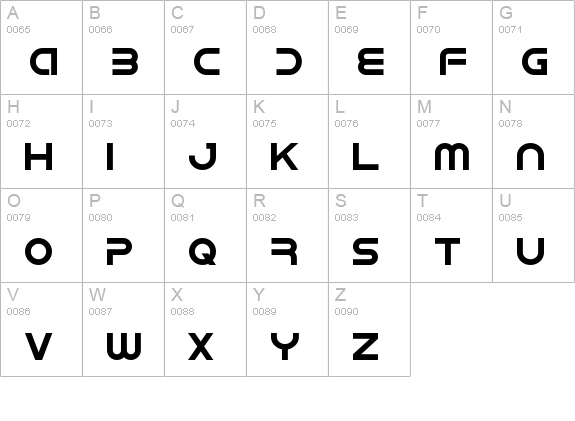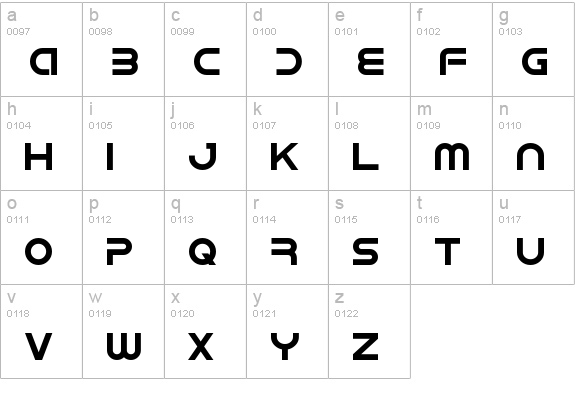
IDroid Font Details
IDroid is a free for personal use font in the Modern > Sci-Fi category. It has been downloaded 60 times and is available for Windows, Mac and Linux.
Introducing IDroid font, a modern and dynamic typeface designed to bring a touch of futuristic elegance to your projects. With its sleek and stylish letterforms, IDroid font is perfect for creating eye-catching designs that demand attention. IDroid font is not just visually appealing, but also highly versatile. Whether you're designing logos, posters, websites, or any other creative endeavor, this font will effortlessly elevate your work to new heights. Its clean lines and sharp edges make it a standout choice for any modern design project. One of the best features of IDroid font is that it is free! That's right, this incredible font is freely available to download at FontsMarket.com, making it accessible to designers and enthusiasts alike. Now, you can enhance your projects with a professional and futuristic touch without breaking the bank. IDroid font is not only visually stunning, but it also offers a wide range of characters and glyphs, ensuring that you have all the tools you need to express your creativity fully. From uppercase and lowercase letters to numerals, punctuation marks, and special symbols, this font has everything you need to make a lasting impression. Whether you're working on a personal project or a client's brief, IDroid font will exceed your expectations. Its versatility, elegance, and futuristic appeal make it a must-have in any designer's toolkit. So why wait? Head over to FontsMarket.com and download IDroid font for free today! Unleash your creativity and let your designs stand out from the crowd with this exceptional typeface.